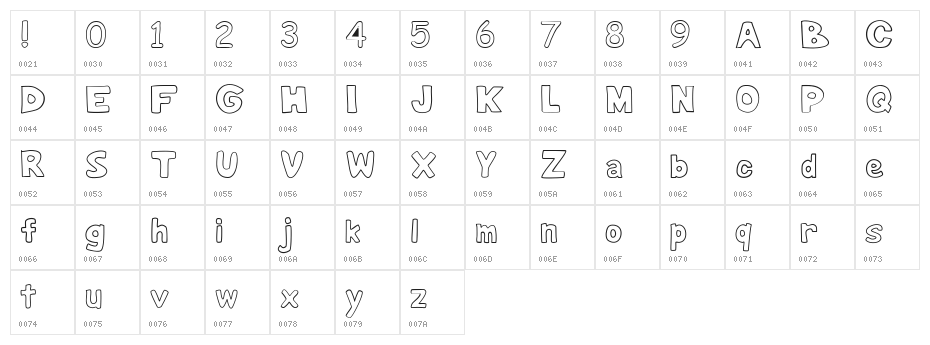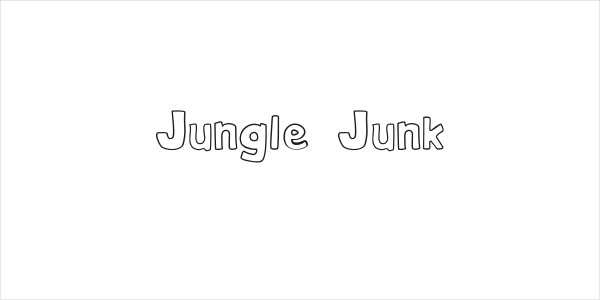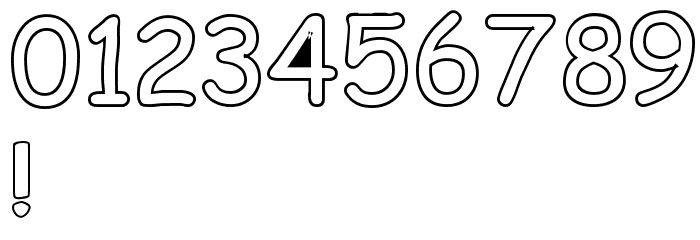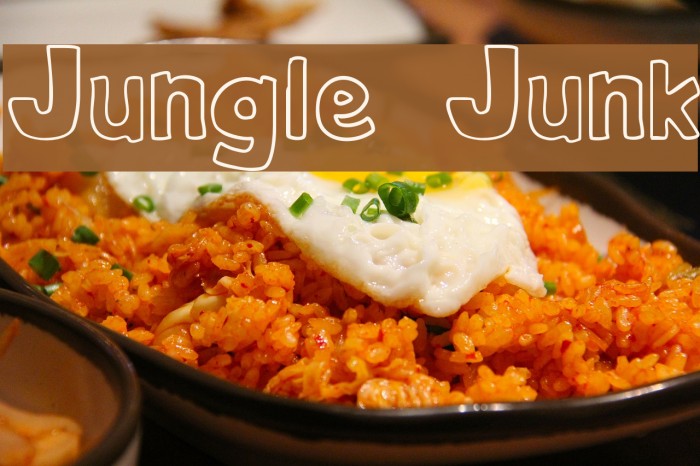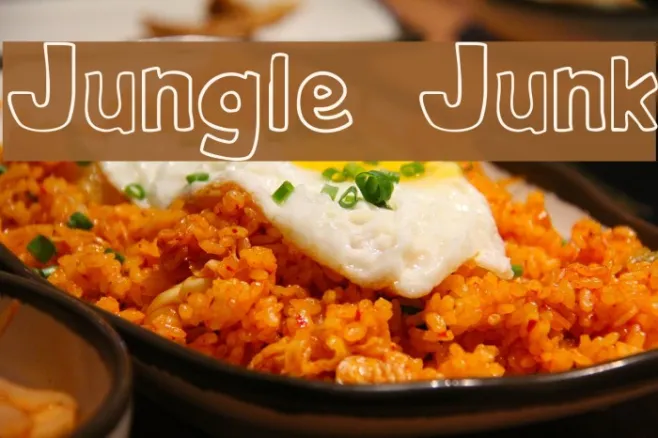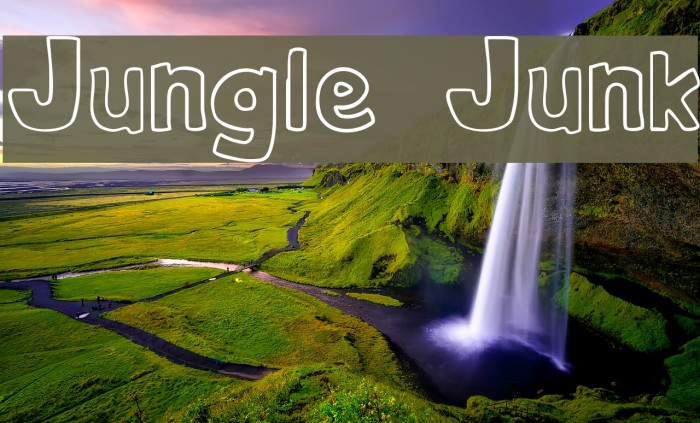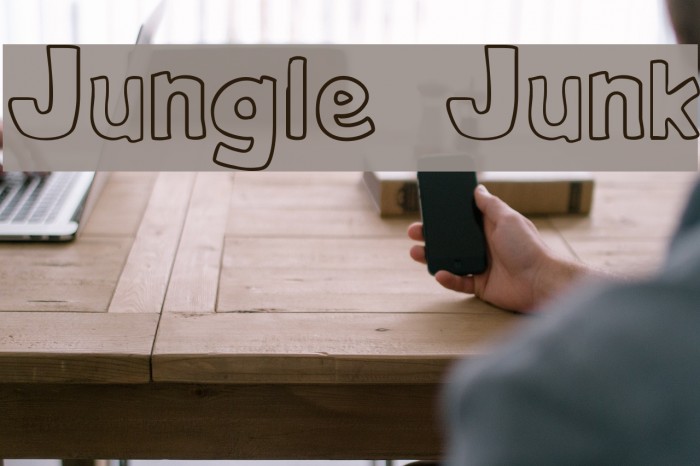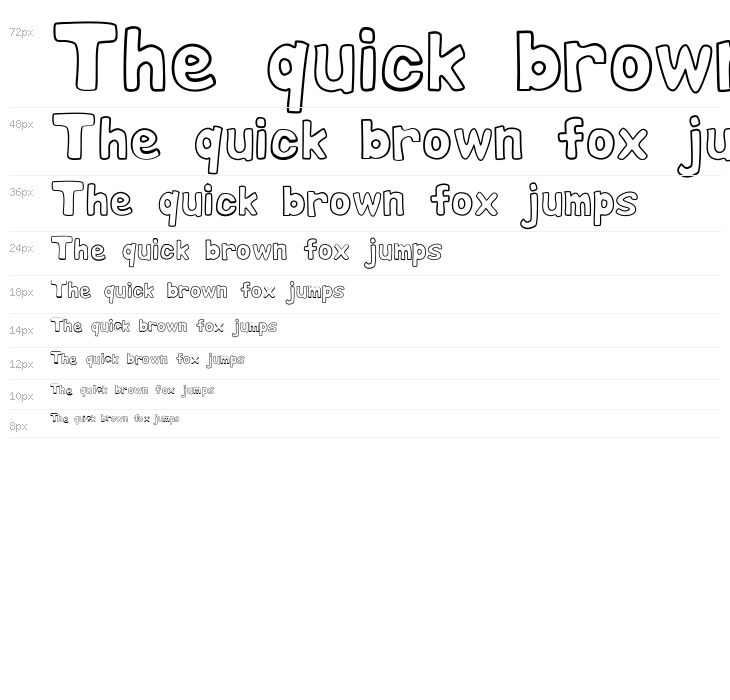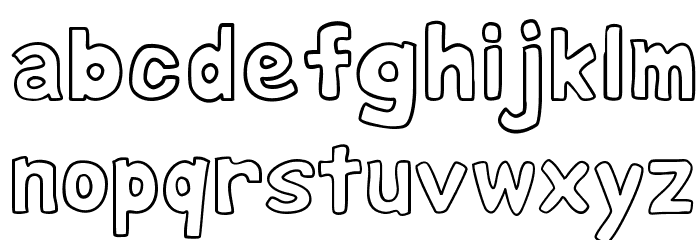
Jungle Junk Font
Jungle Junk Description
This playful and bold font features a unique outline style that gives it a fun and whimsical appearance. The characters are rounded and slightly irregular, adding to the informal and lively feel. The uppercase and lowercase letters maintain a consistent style, with a slight variation in stroke thickness that enhances its dynamic look. The numbers and special characters follow the same playful design, making it versatile for various creative projects. Its distinct outline makes it stand out, perfect for eye-catching designs.
| Proposed Projects | Ideal for children's books, party invitations, playful branding, and creative posters. |